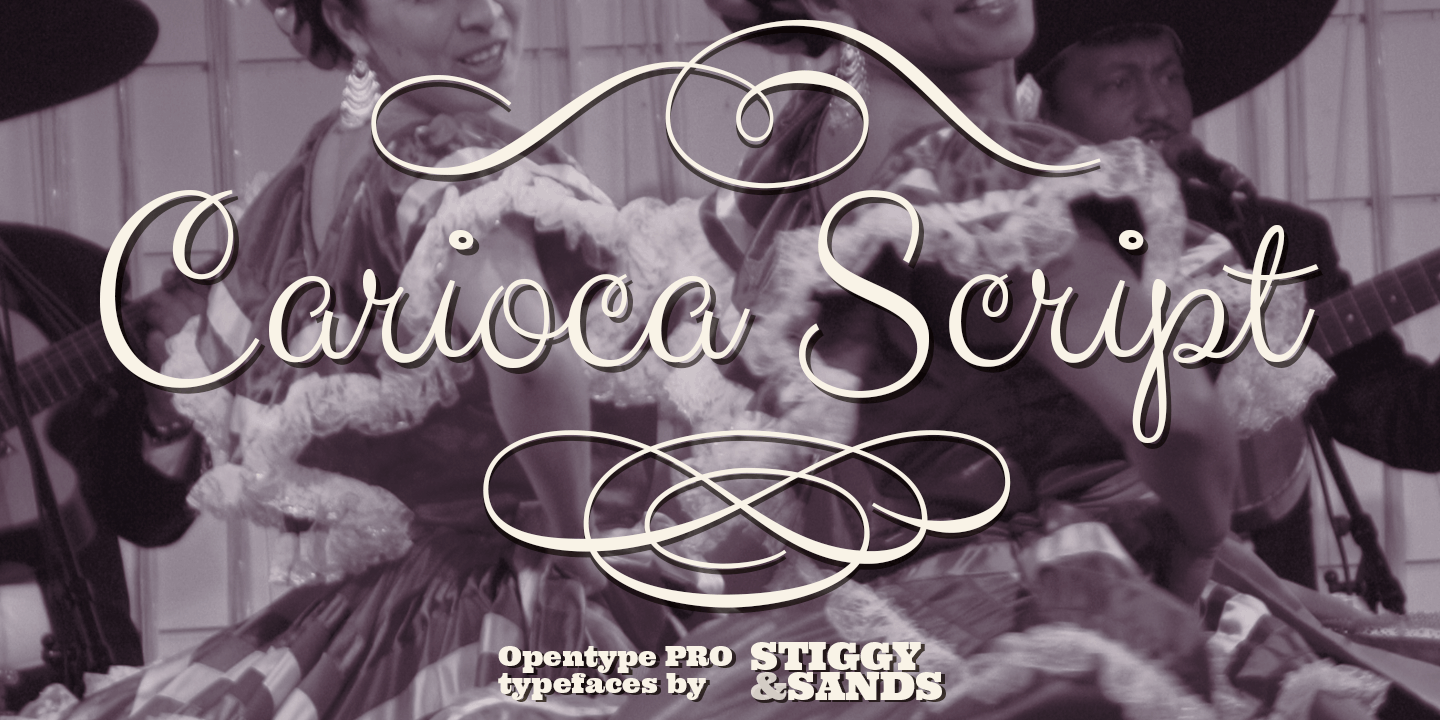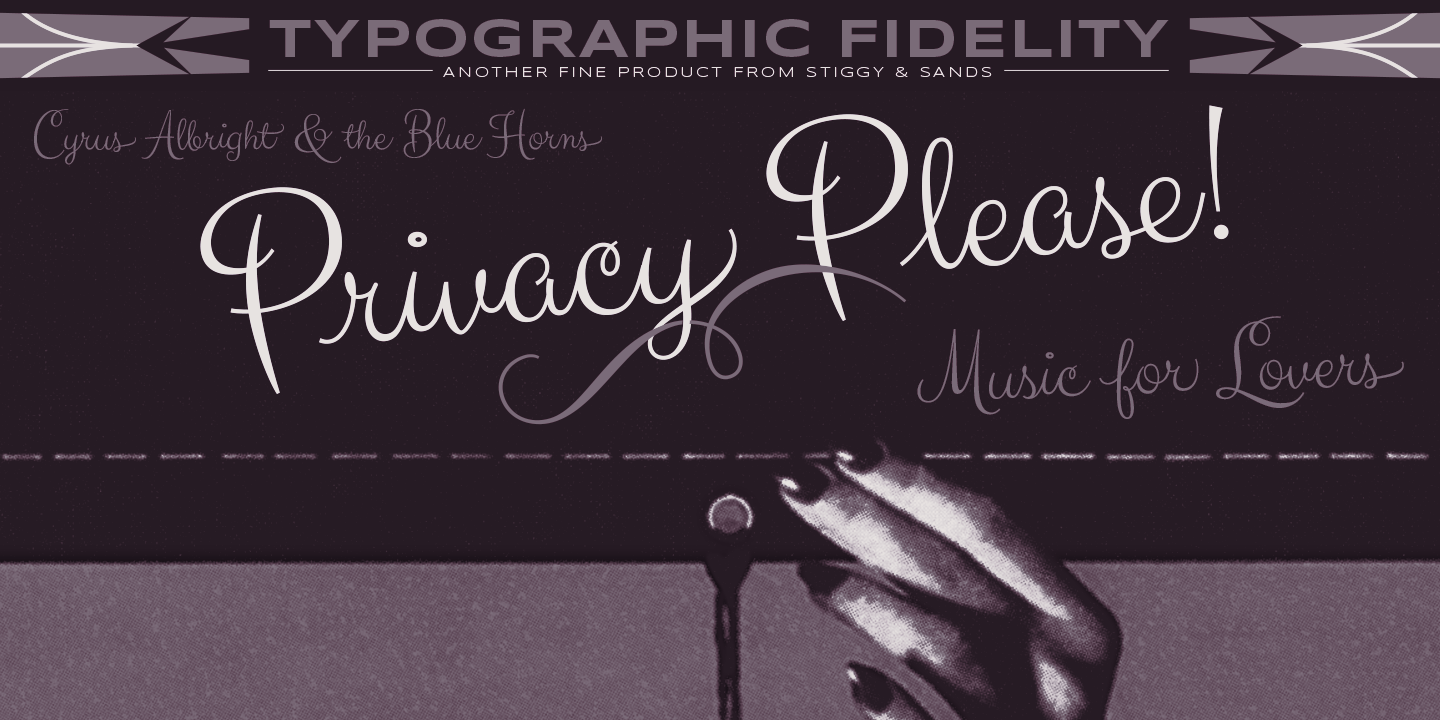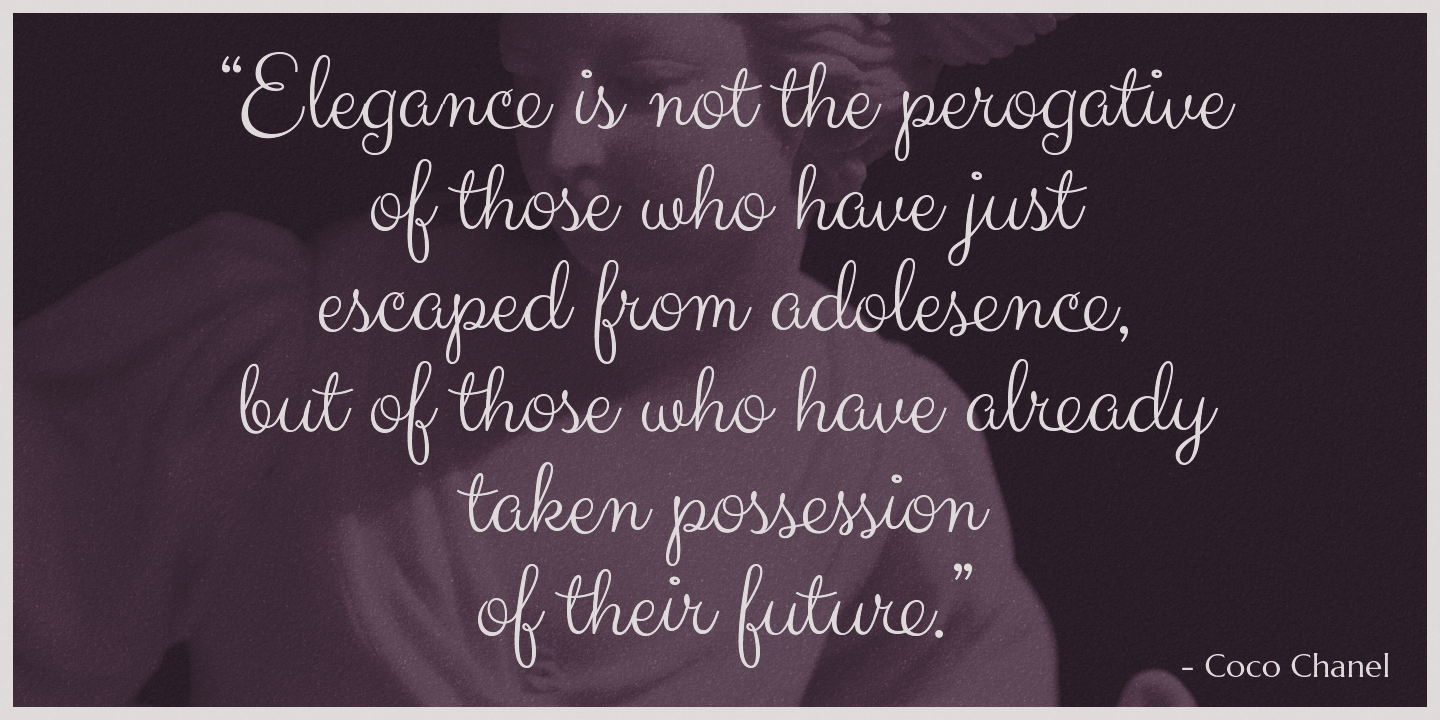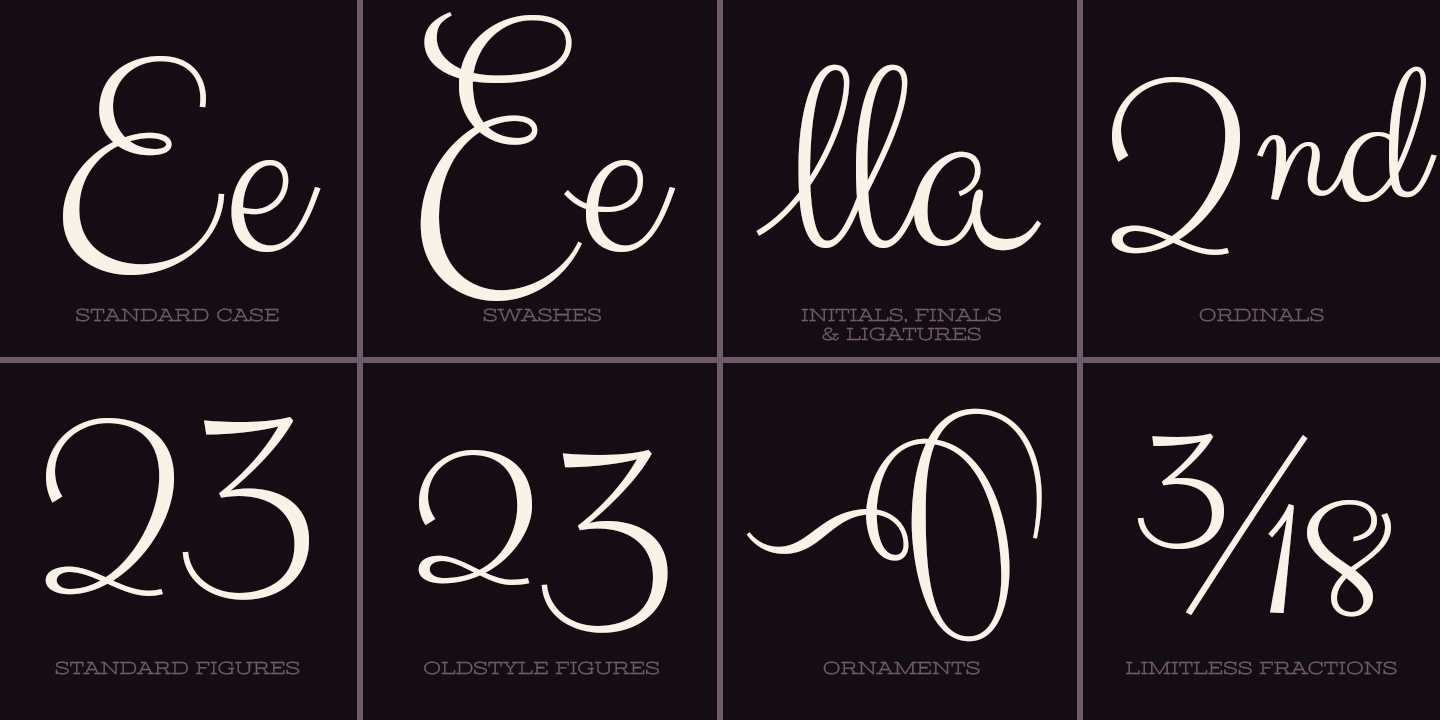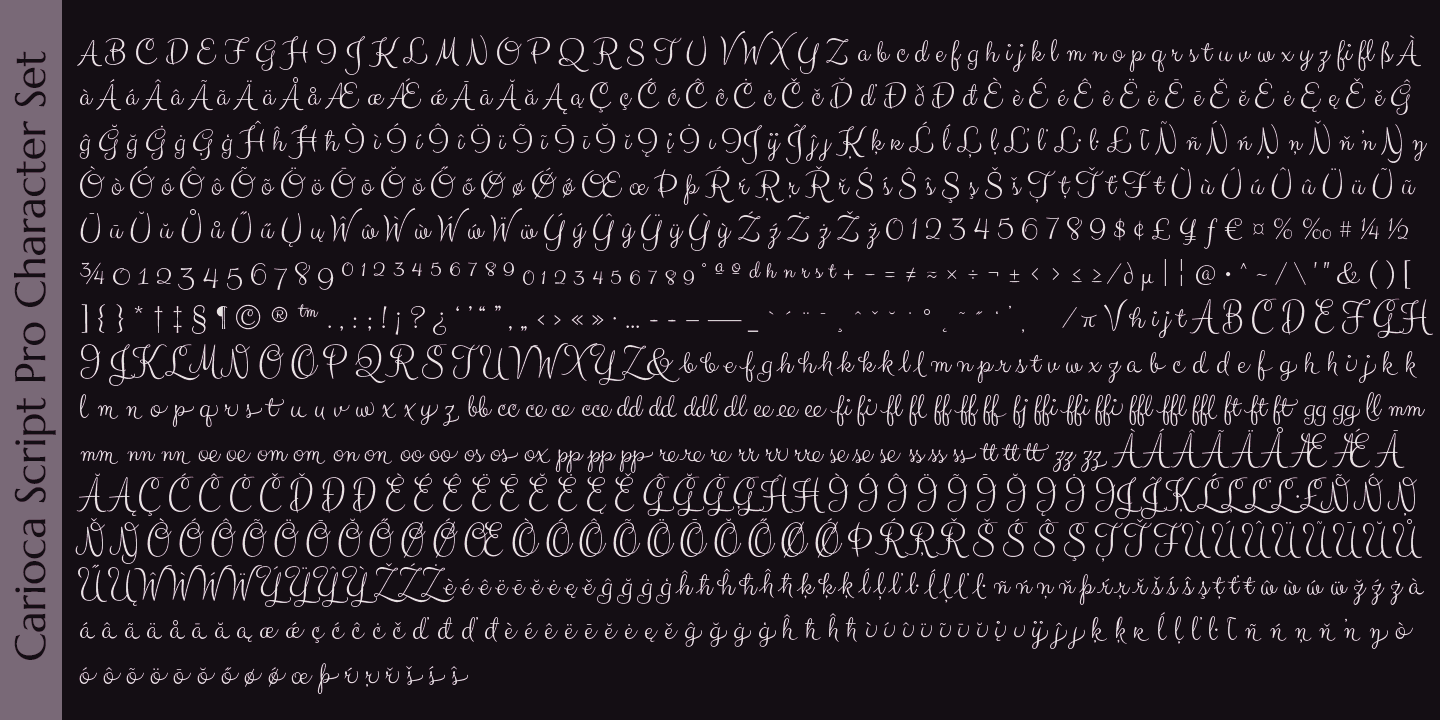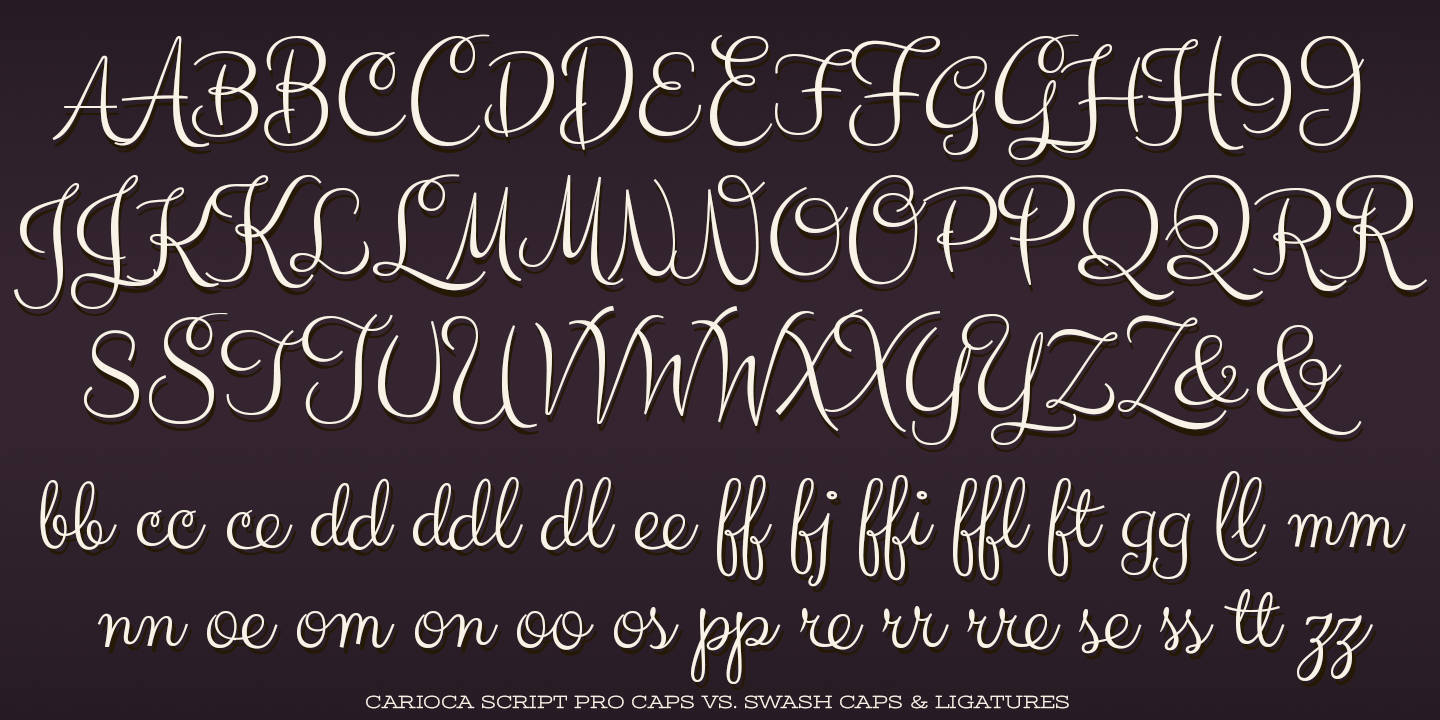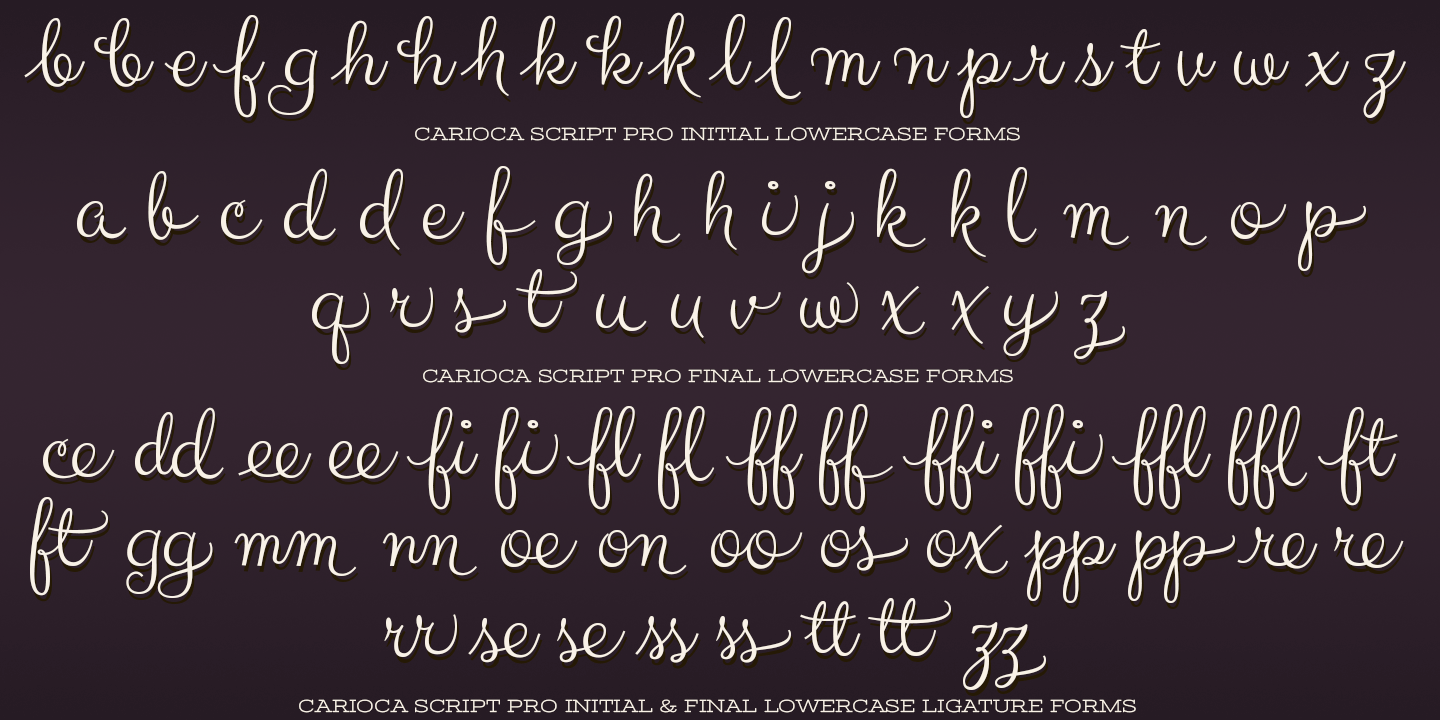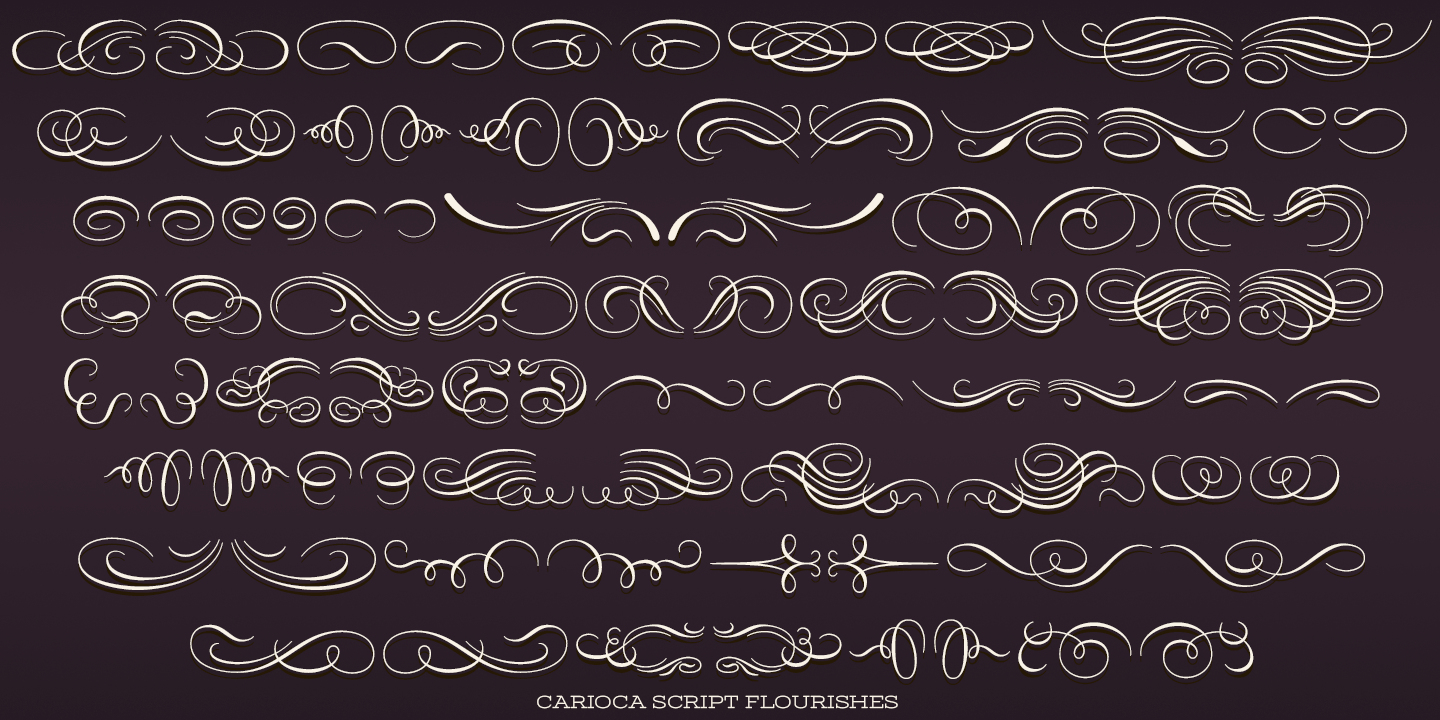
Carioca Script Pro
Font Family by Stiggy & Sands
Buy NowOur Carioca Script Pro was inspired the lettering from the RCA Records Stereo Action Series from the 1960's. It's a signature script that is both elegant yet slightly bouncy and truly sings?lending a happy-go-lucky flavor to any design. This script is loaded with extra features - truly giving Carioca Script Pro something to sing about.
Opentype features include:
- Swash Capitals.
- Initial and Final forms of Lowercase letters via Stylistic & Contextual Alternates.
- Full set of Inferiors and Superiors for limitless fractions.
- Oldstyle figures.
- Ordinals.
- 10 Flourishes included in Carioca Script Pro. 90 Flourishes in Carioca Script Flourishes.